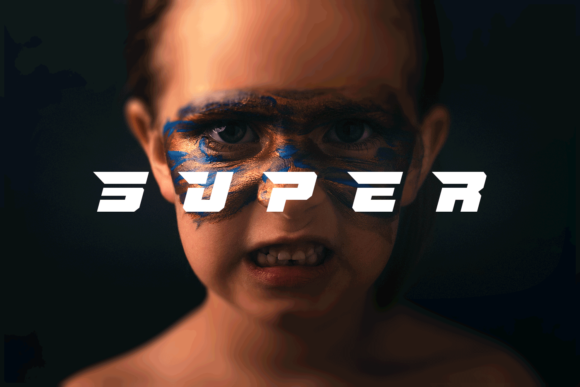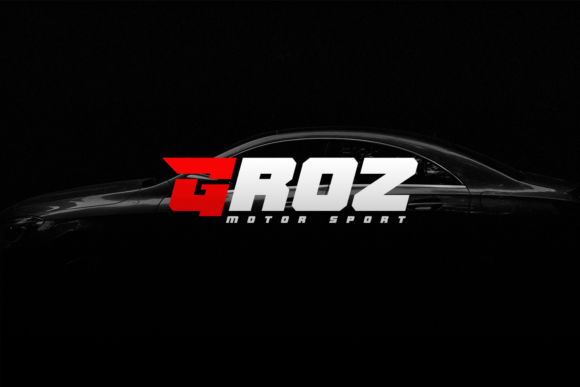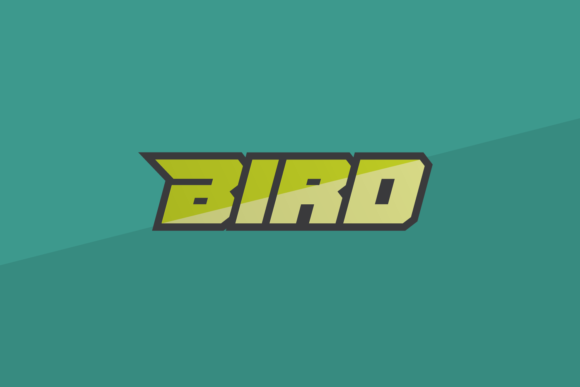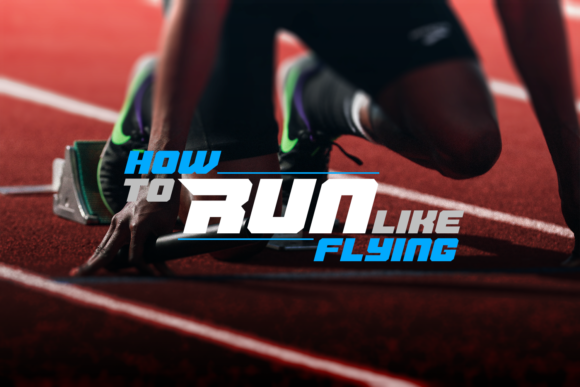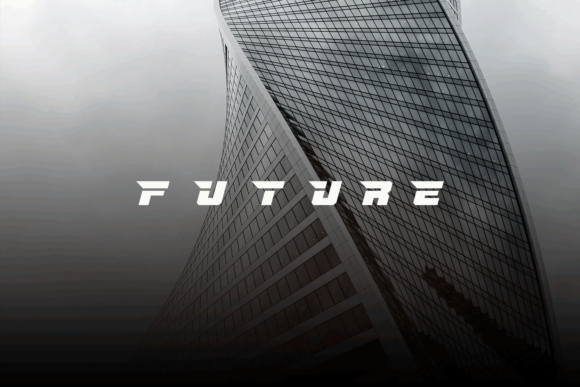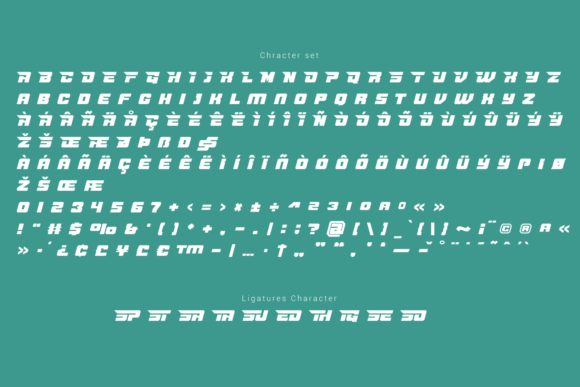
Boge Font: The Ultimate Display Font for Creative Projects
Boge is a bold and thick lettered display font that has been masterfully designed to become a true favorite among designers and crafters. With its robust and eye-catching style, this font has the potential to bring each of your creative ideas to the highest level. In this article, we’ll dive into the features and benefits of Boge Font, and explore how it can elevate your design projects.
What is Boge Font?
Boge Font is a display font that boasts a bold and thick lettered style, making it perfect for headlines, titles, and other attention-grabbing elements. Its unique design ensures that your text stands out from the crowd, adding a touch of sophistication and elegance to your creative projects.
Key Features of Boge Font
- Bold and Thick Lettering: Boge Font features bold and thick lettering that commands attention and makes a lasting impression.
- Masterfully Designed: The font has been carefully crafted to ensure that it is both visually appealing and highly legible.
- Versatile: Boge Font can be used for a wide range of creative projects, from posters and flyers to logos and branding materials.
- Easily Readable: Despite its bold style, Boge Font is surprisingly easy to read, making it perfect for use in titles, headings, and other display text.
Benefits of Using Boge Font
So why choose Boge Font for your creative projects? Here are just a few benefits of using this amazing display font:
- Adds Visual Impact: Boge Font adds a touch of drama and visual impact to your designs, making them more engaging and attention-grabbing.
- Enhances Creativity: With its bold and thick lettered style, Boge Font can help inspire your creativity and bring new ideas to life.
- Perfect for Branding: Boge Font is ideal for use in logos, branding materials, and other marketing collateral, helping to create a strong and memorable brand identity.
How to Use Boge Font in Your Designs
Using Boge Font in your designs is easy! Here are a few tips to get you started:
- Pair with Other Fonts: Boge Font pairs well with a variety of other fonts, so don’t be afraid to experiment and find the perfect combination for your design.
- Use for Headlines and Titles: Boge Font is perfect for use in headlines and titles, where its bold and thick lettering can really make an impact.
- Experiment with Colors: Boge Font looks great in a wide range of colors, so don’t be afraid to try out different color schemes and see what works best for your design.
- Is Boge Font easy to read?: Yes, despite its bold style, Boge Font is surprisingly easy to read, making it perfect for use in titles, headings, and other display text.